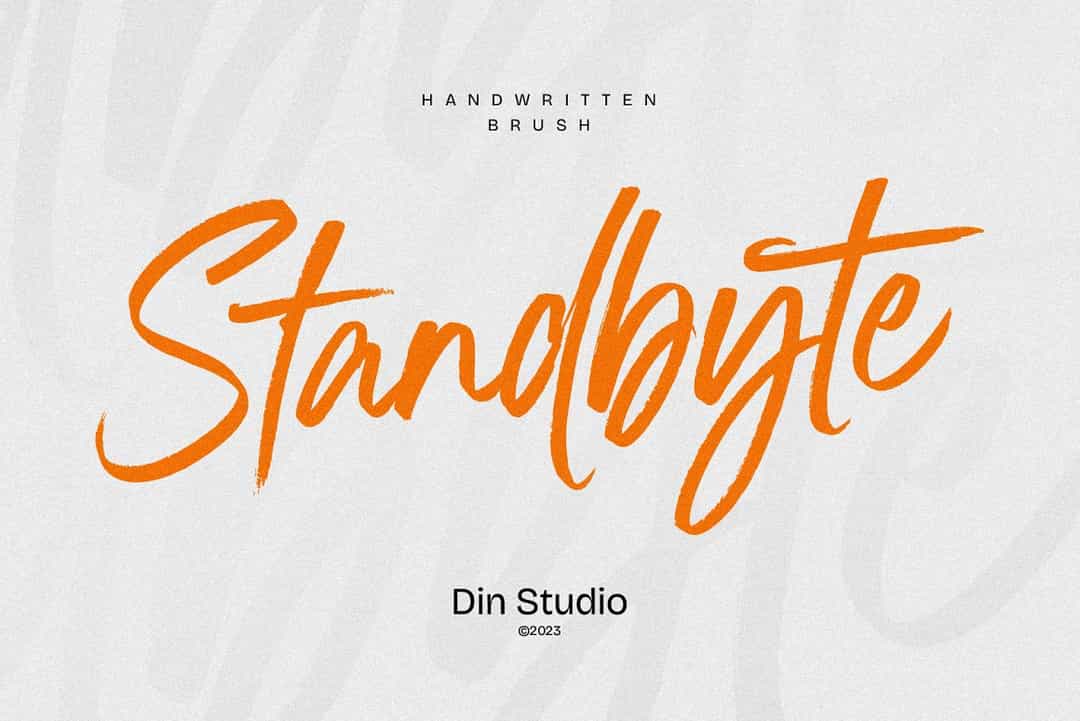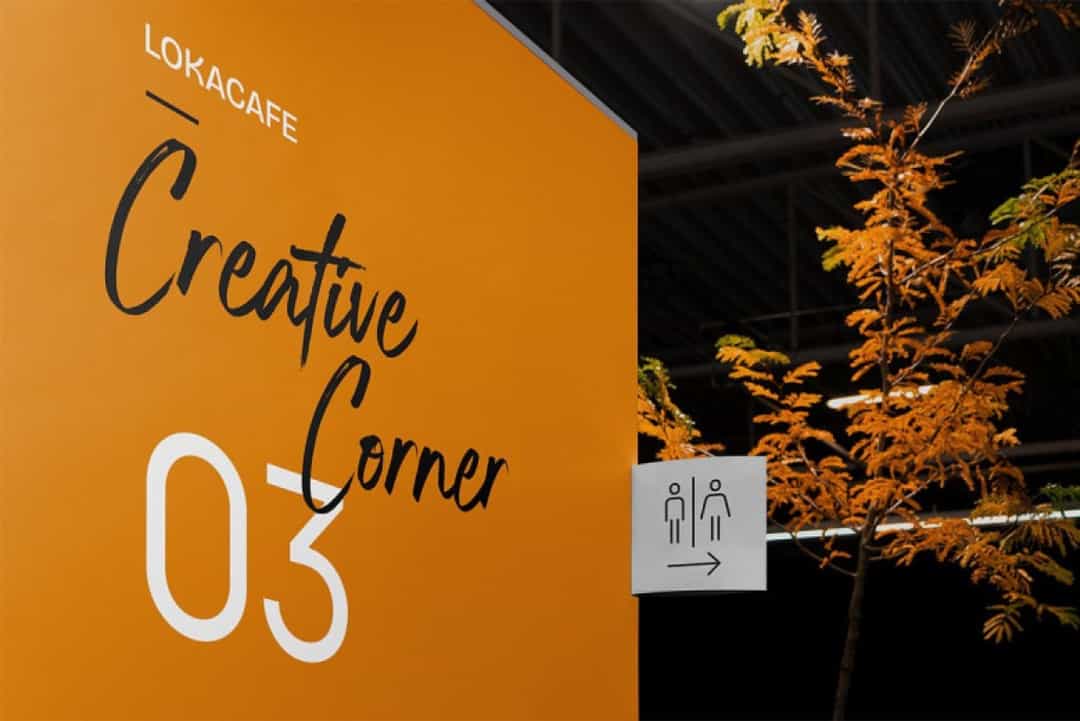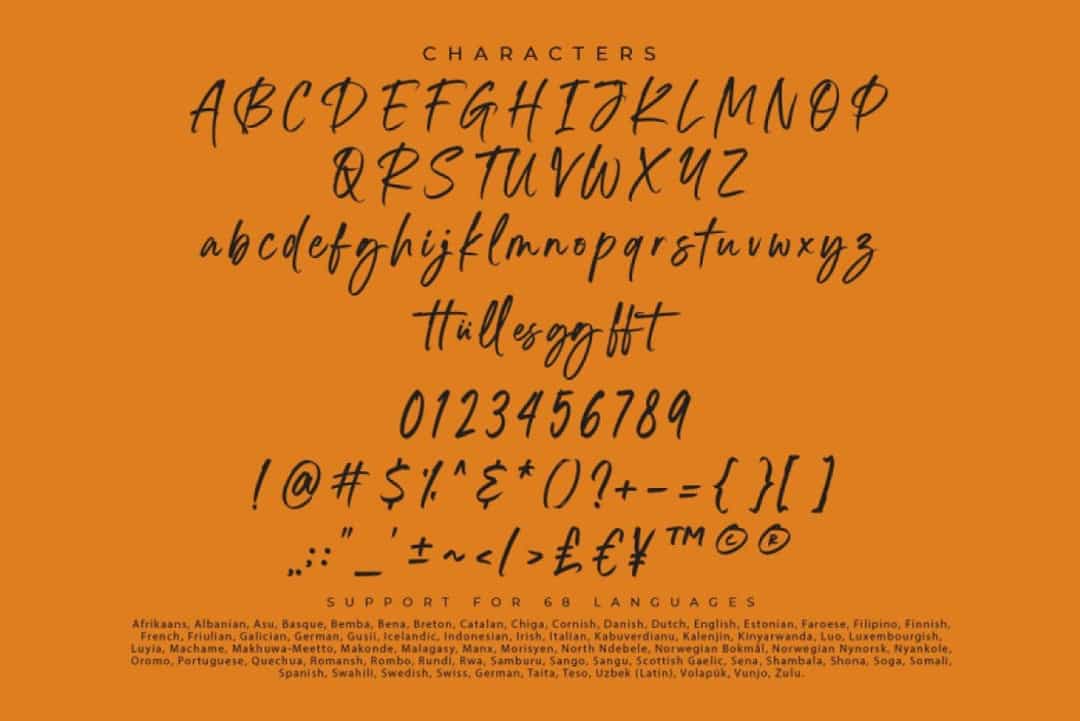
Standbyte is a captivating script brush font, that elegantly captures the essentials of cursive handwriting through intricate brush strokes. This typeface embodies both fluid handwritten script and elegant brush strokes to produce its distinct aesthetic. Standbyte’s flowing letterforms mirror natural movements of cursive writing for an authentic and warm experience.